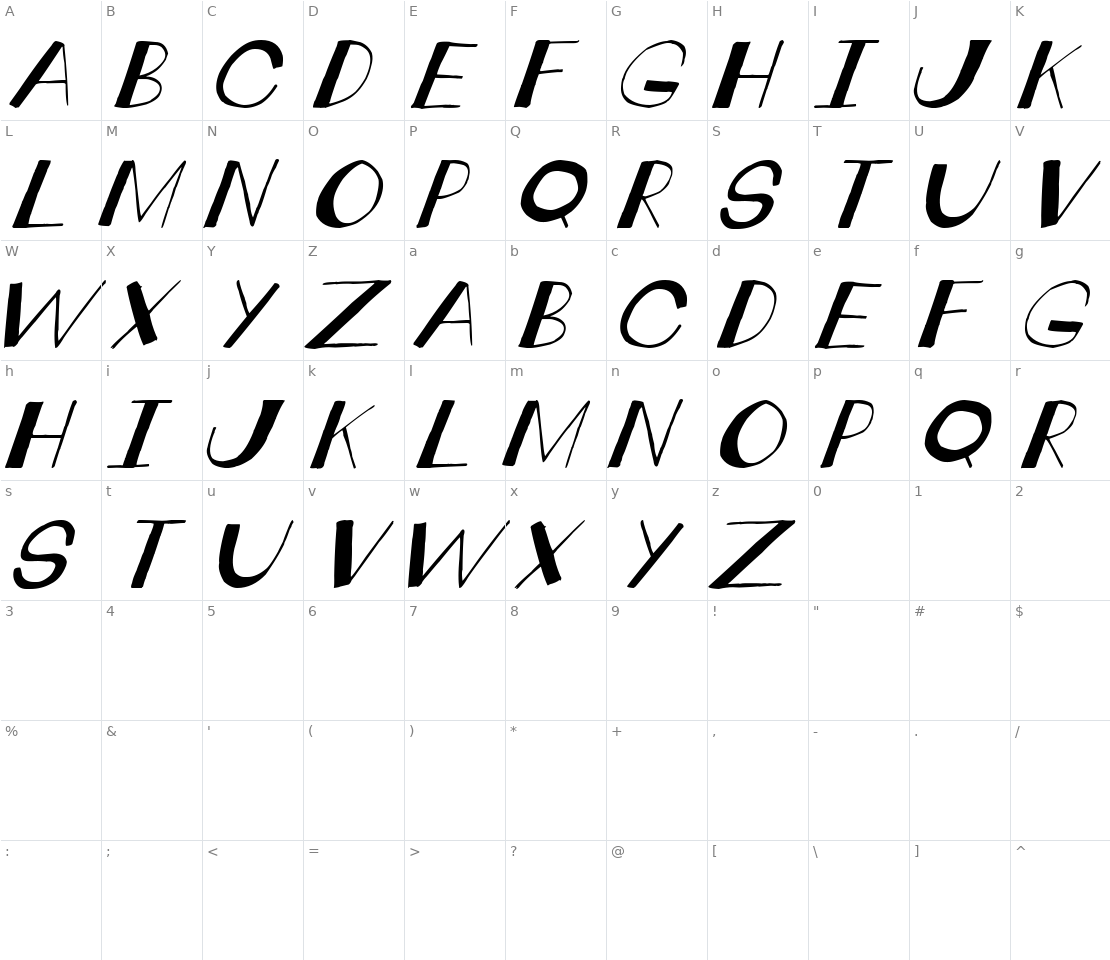
Crankdeal
Crankdeal is a bold, slanted brush face from Xerographer Fonts with thick, hand-painted strokes that carry real momentum across the page. The uppercase-only letterforms feel fast and loose, like someone attacked a sign with a loaded brush and didn't look back. A strong pick for headlines, posters, and packaging where you want something casual but punchy.